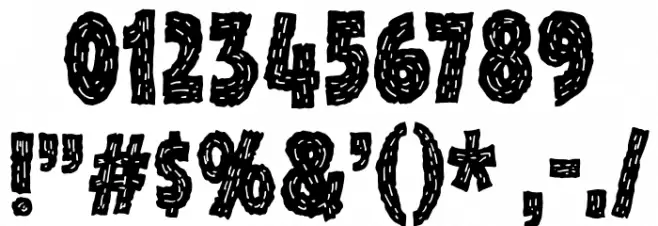
SnackPatrolDEMO Font
SnackPatrolDEMO Description
This font features a bold, hand-drawn style with a playful and energetic appearance. Each character is filled with a scribbled texture, giving it a unique and dynamic look. The letters are uppercase and lowercase, with numbers and a variety of special characters included. The overall design is reminiscent of doodles or sketches, making it ideal for projects that require a fun and informal touch. The strokes are thick and consistent, contributing to a strong visual impact. This font is perfect for creative and artistic applications where a lively and informal tone is desired.
A bold, hand-drawn font with a playful, scribbled texture from Uncategorized fonts.
- Proposed Projects: Ideal for children's books, playful branding, posters, and creative invitations.
- Overall Style: Playful, Artistic, Informal
- Use Case: Headlines, Posters, Creative Branding